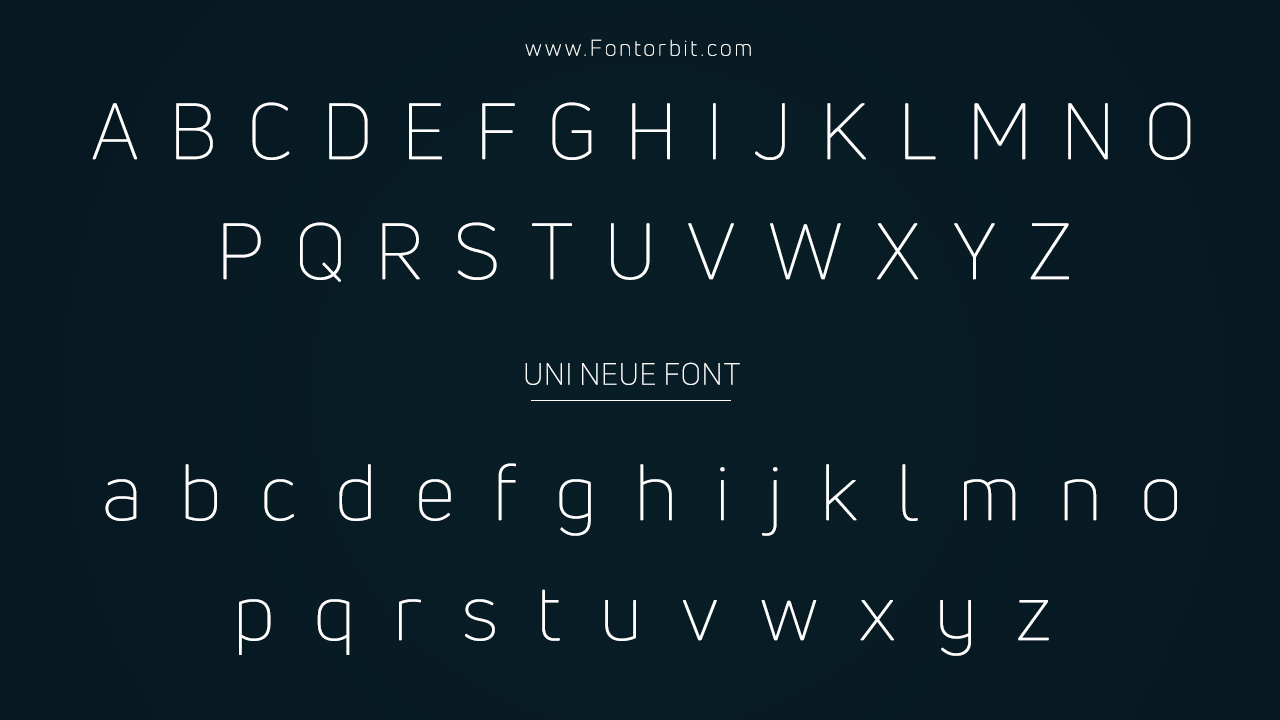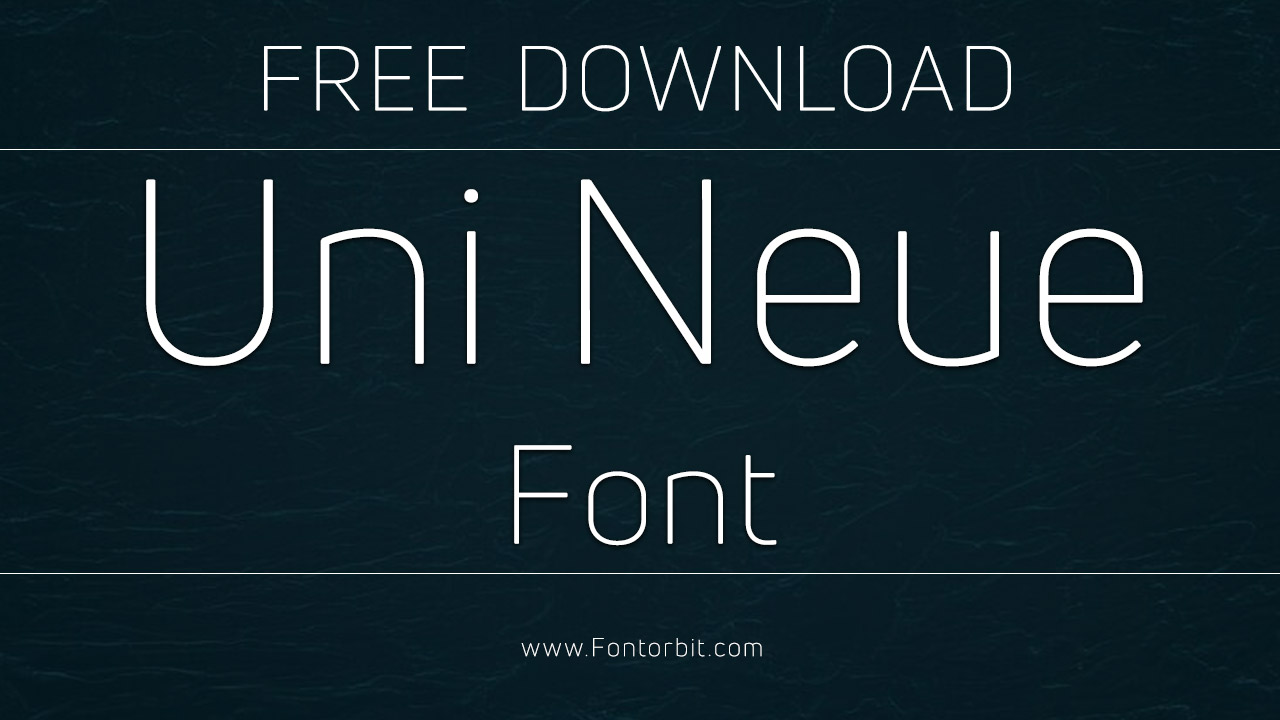
Uni Neue is a modern sans-serif typeface designed by Fontfabric and published by Fontfabric in 2017. It is known for its geometric structure with a clean and contemporary appearance, making it suitable for various design purposes. The font family includes several weights, offering versatility in design.
Notable Uses Of Uni Neue
Uni Neue is perfect for branding projects, editorial design, websites, and advertising. Its clean lines and geometric balance make it suitable for both print and digital media, from corporate identity to posters and signage.
Uni Neue’s versatility makes it an excellent choice for modern and professional designs. You can use this font in:
- Logo Design
- Web Design & UI
- Advertising Materials
- Print Editorials
- Magazines
- Wayfinding
Uni Neue stands out as a versatile sans-serif that can suit many creative needs. Whether you are working on a brand identity or modern web design, its geometric, professional structure and clean legibility ensure a polished, contemporary look.
2. Is Uni Neue Suitable For Web Design?
Yes, it is perfect for web design due to its clean, geometric design.
3. How Many Weights Does Uni Neue Have?
Uni Neue has 12 styles, including Thin, Light, Regular, Bold, and Black with italics.
4. Can I Use Uni Neue For A Logo?
Yes, its modern, geometric look makes it ideal for logos.
5. Does Uni Neue Support Multiple Languages?
Yes, Uni Neue has extensive language support, including Latin and Cyrillic alphabets.
6. What Font Pairing Works Well With Uni Neue?
Fonts like Merriweather or Roboto work well for contrast in text-heavy designs.
8. What Makes Uni Neue Stand Out?
Its geometric precision, modern aesthetic, and versatile range of weights make it highly functional.